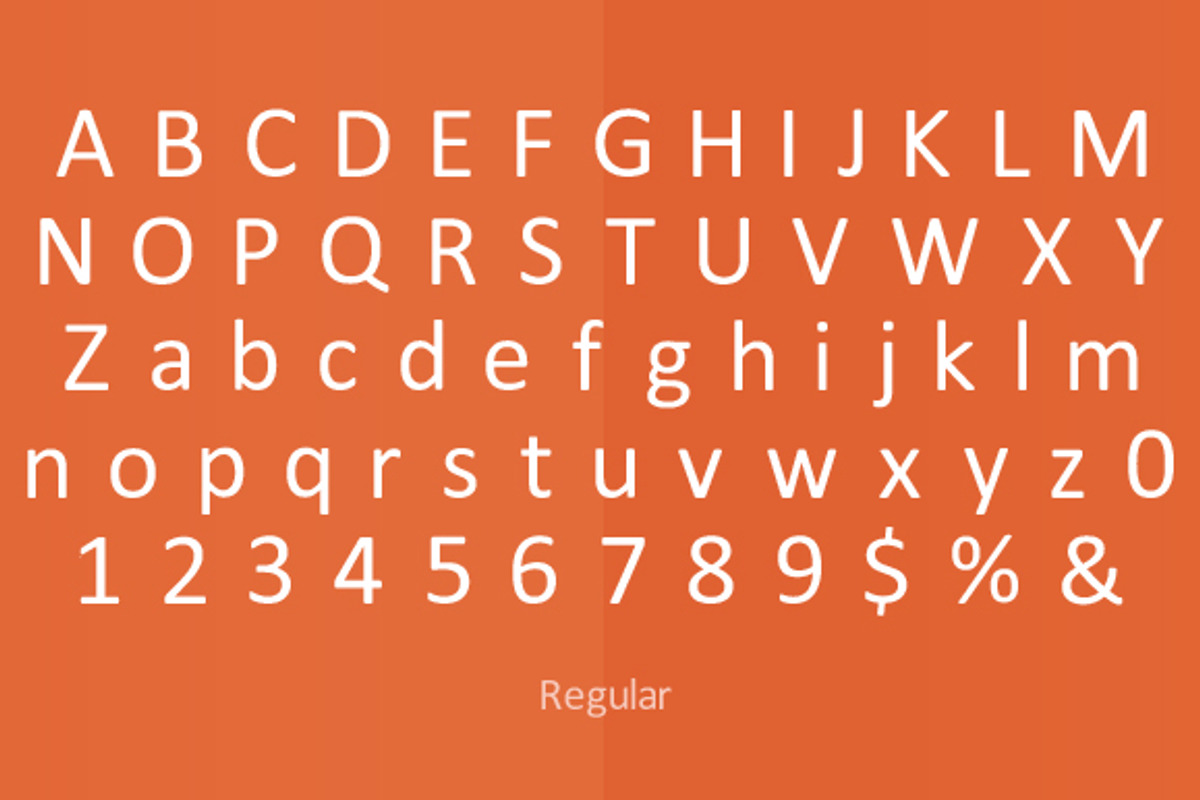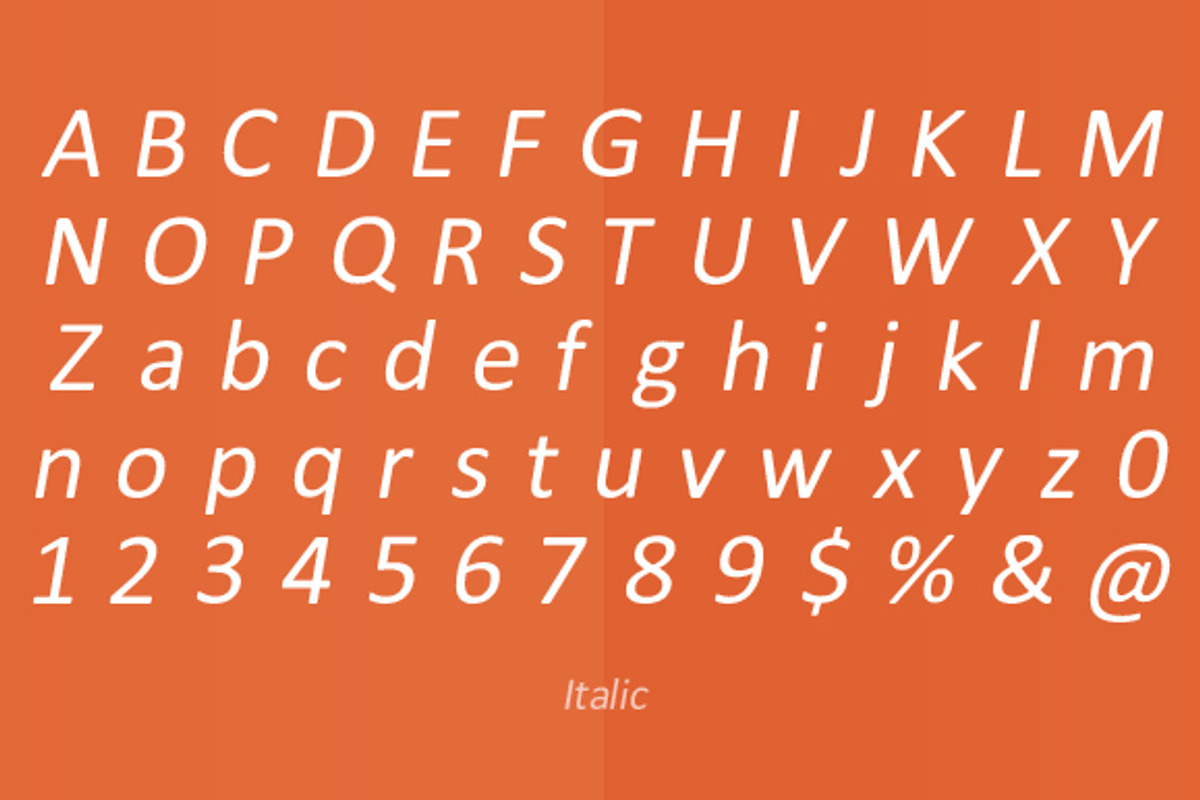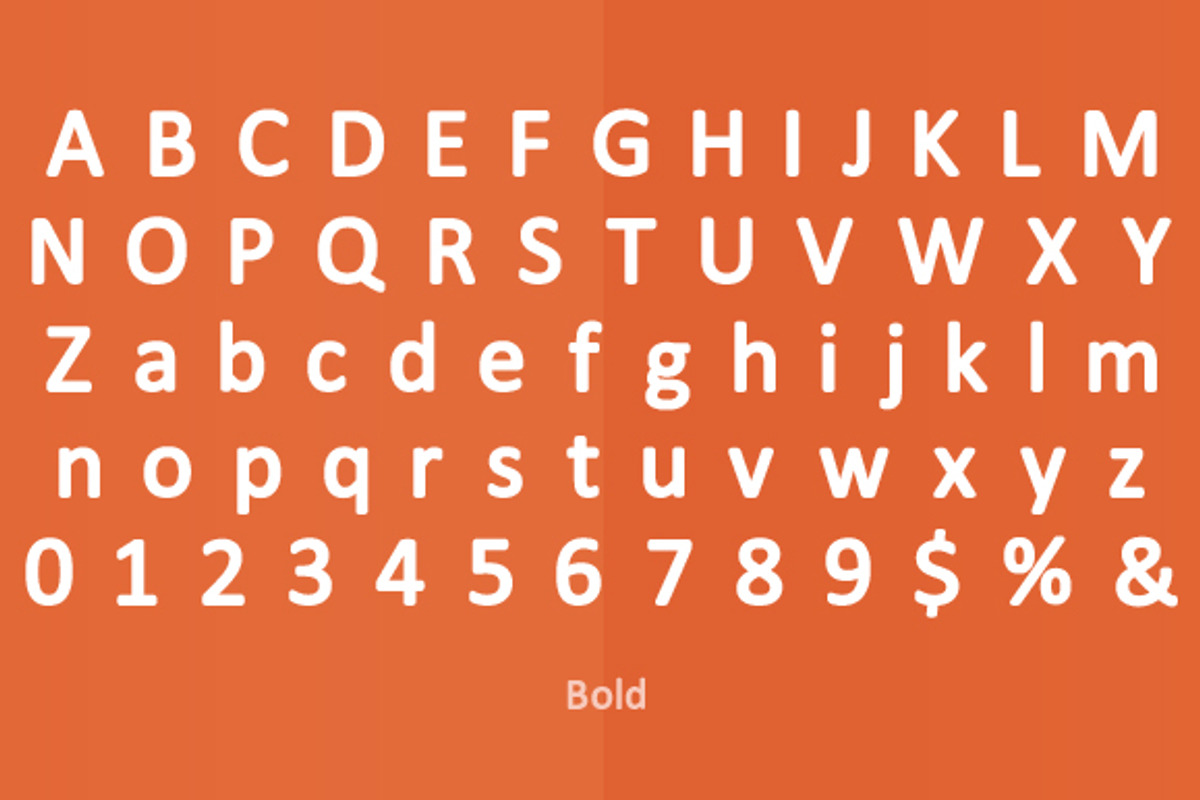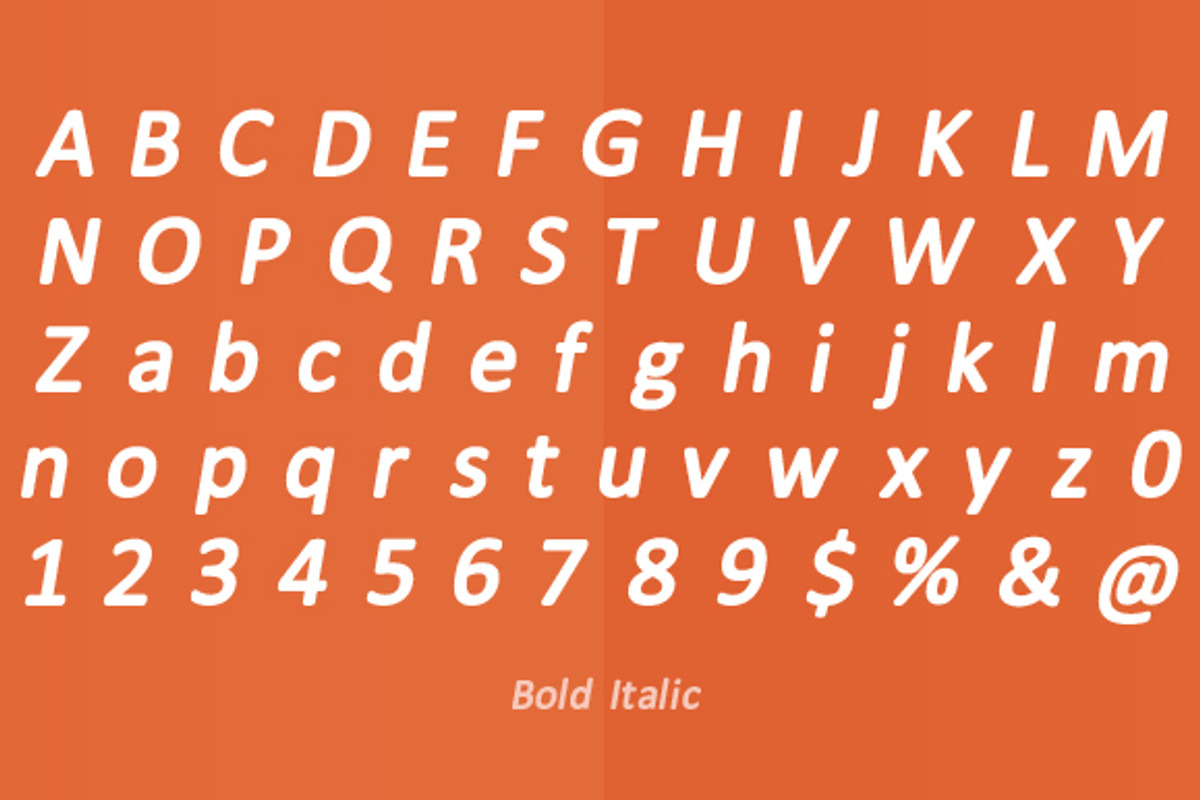
Meddle Sans-serif Font Family
Meddle Sans-serif Font Family by Medialoot is a font selected for branding, posters, packaging, typography.
Why Meddle Sans-serif Font Family is worth a look
Meddle Sans-serif Font Family by Medialoot fits naturally into Branding, posters, packaging, typography.